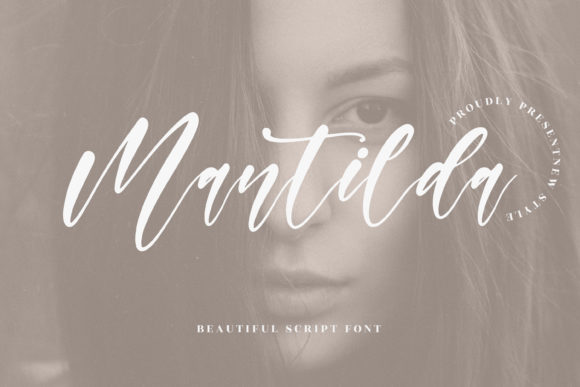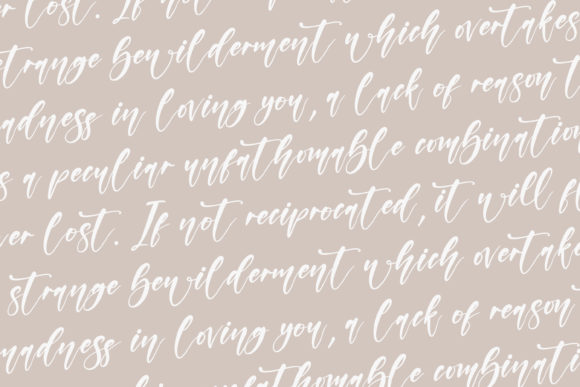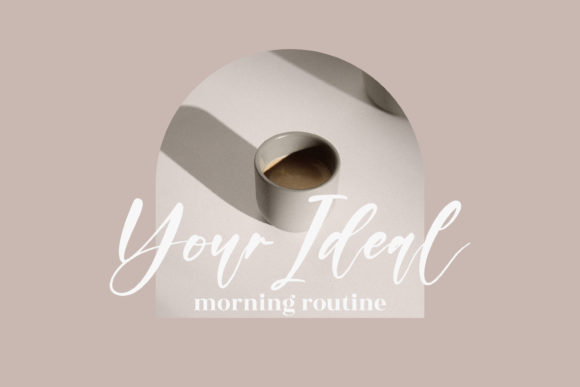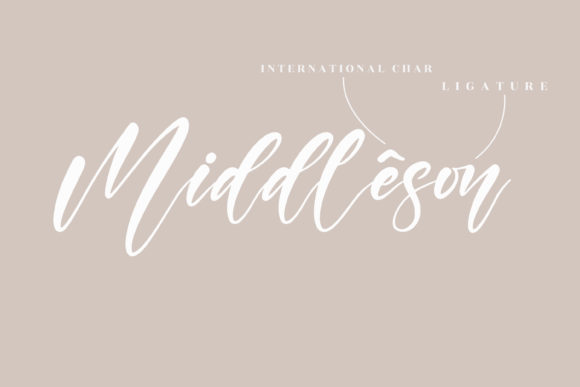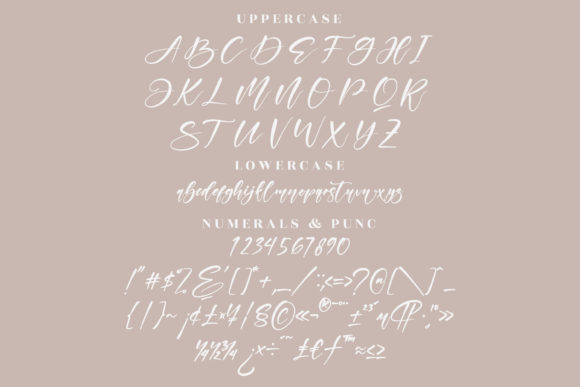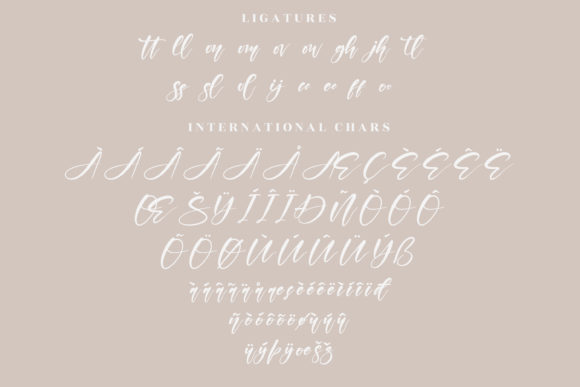
Mantilda Font
About Mantilda Font
Mantilda is an elegant script font. Fall in love with its incredibly versatile style and use it to create gorgeous wedding invitations, beautiful stationary art, eye-catching social media posts, and much more!